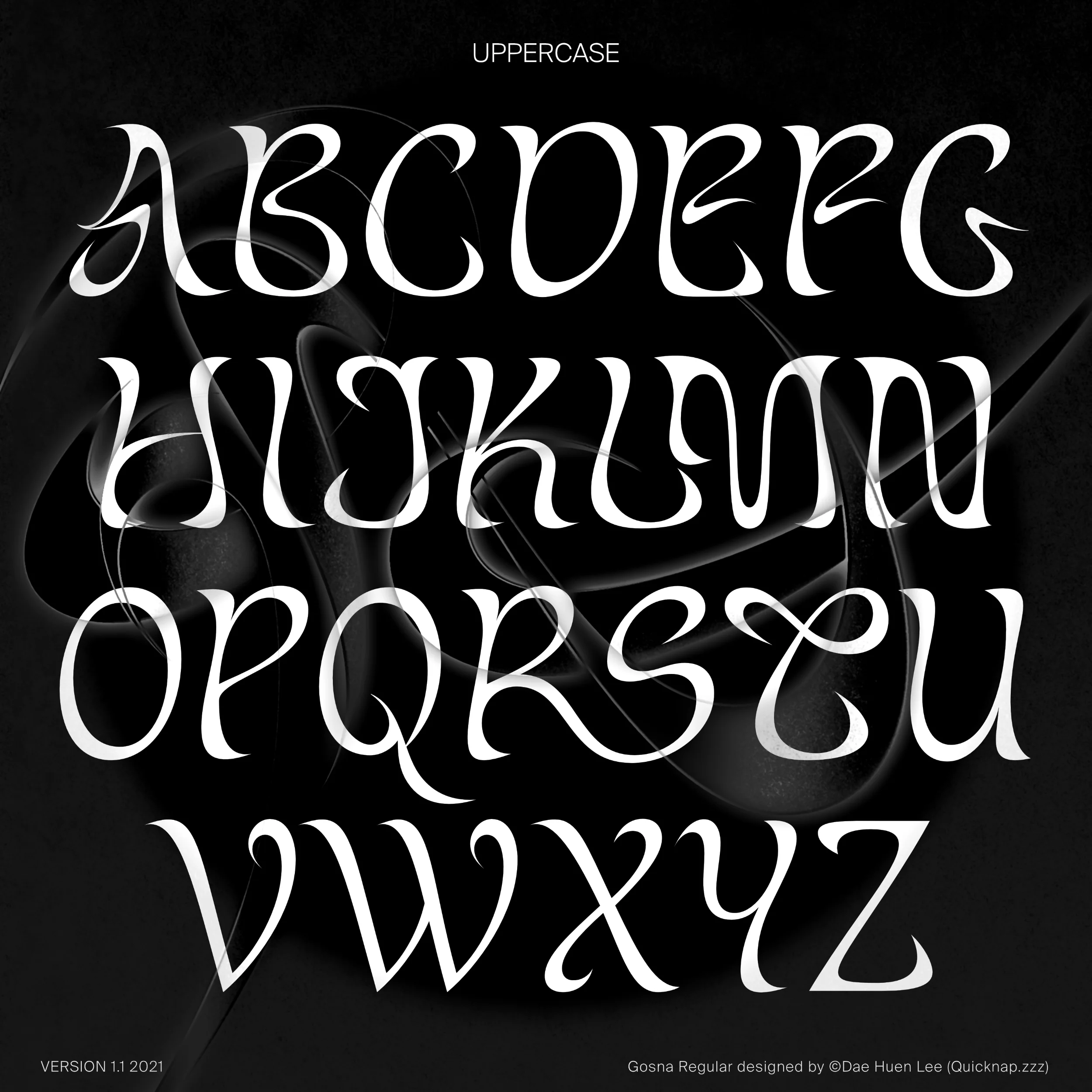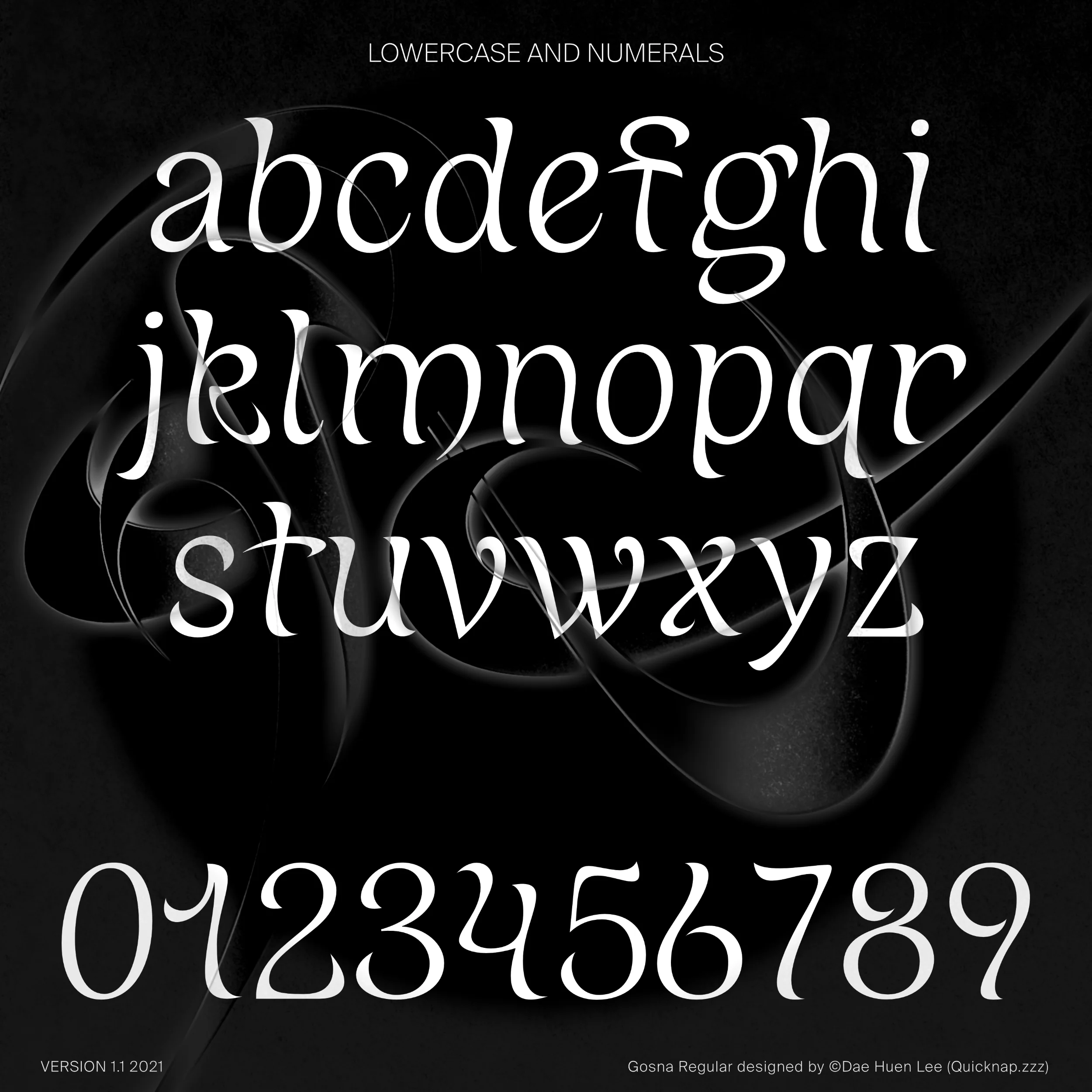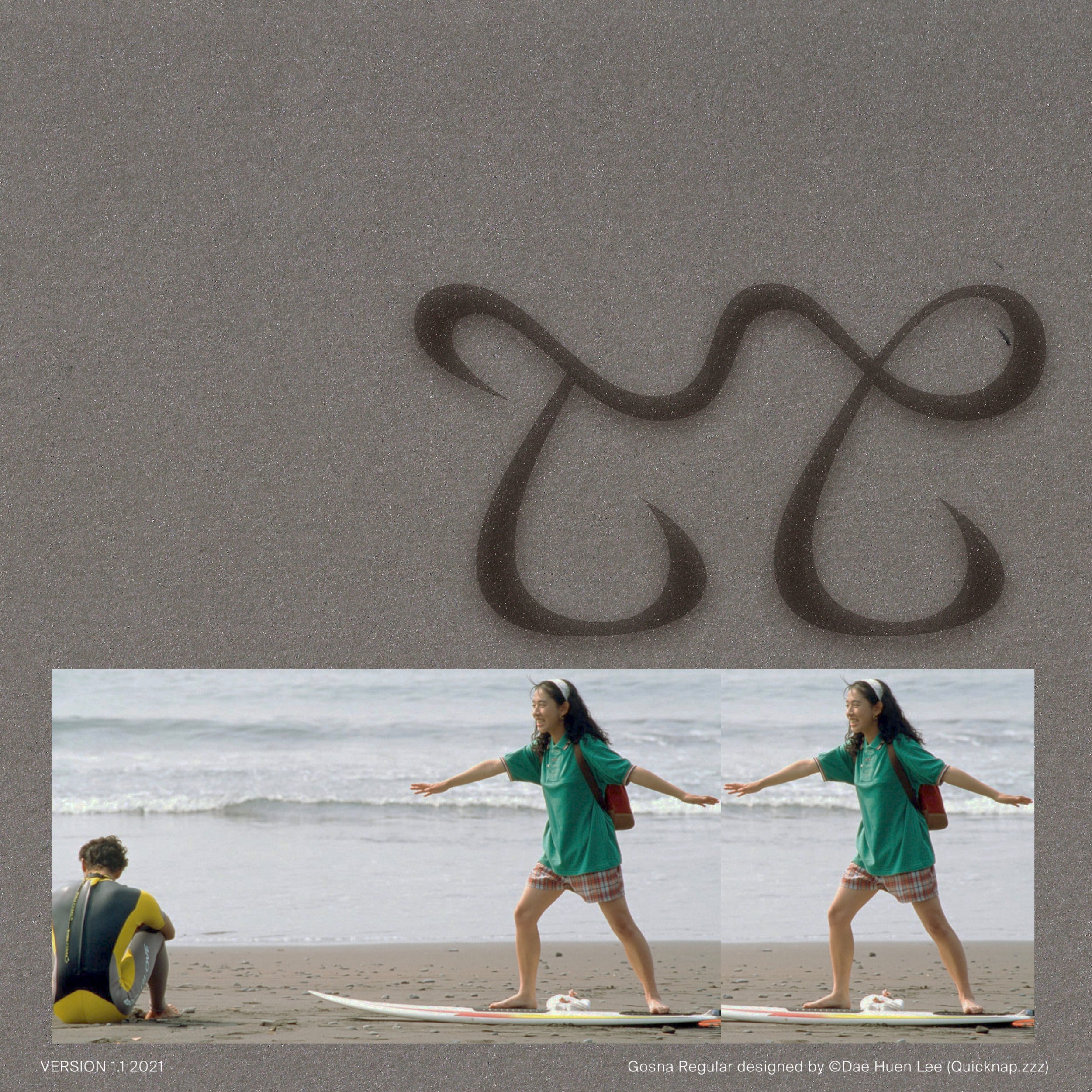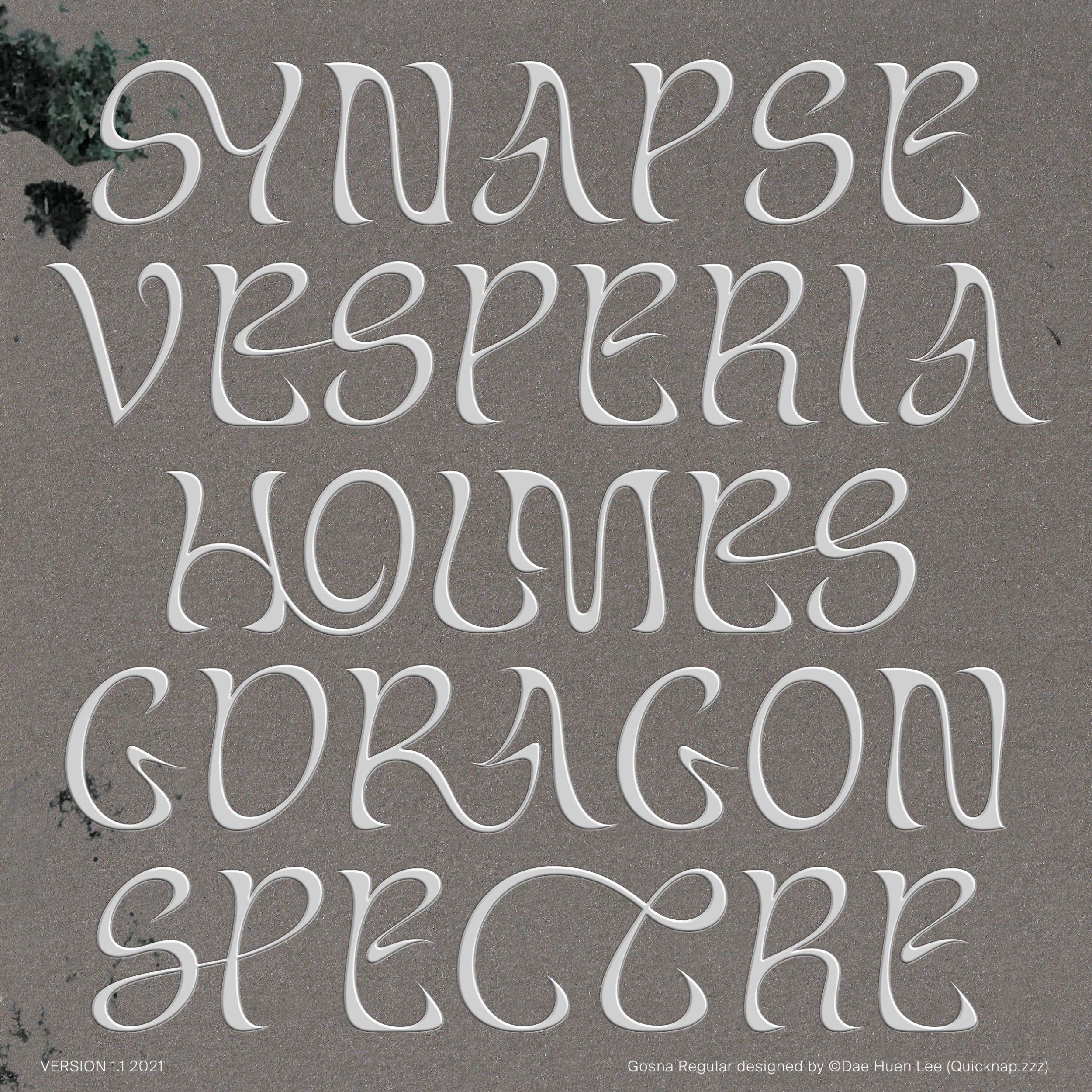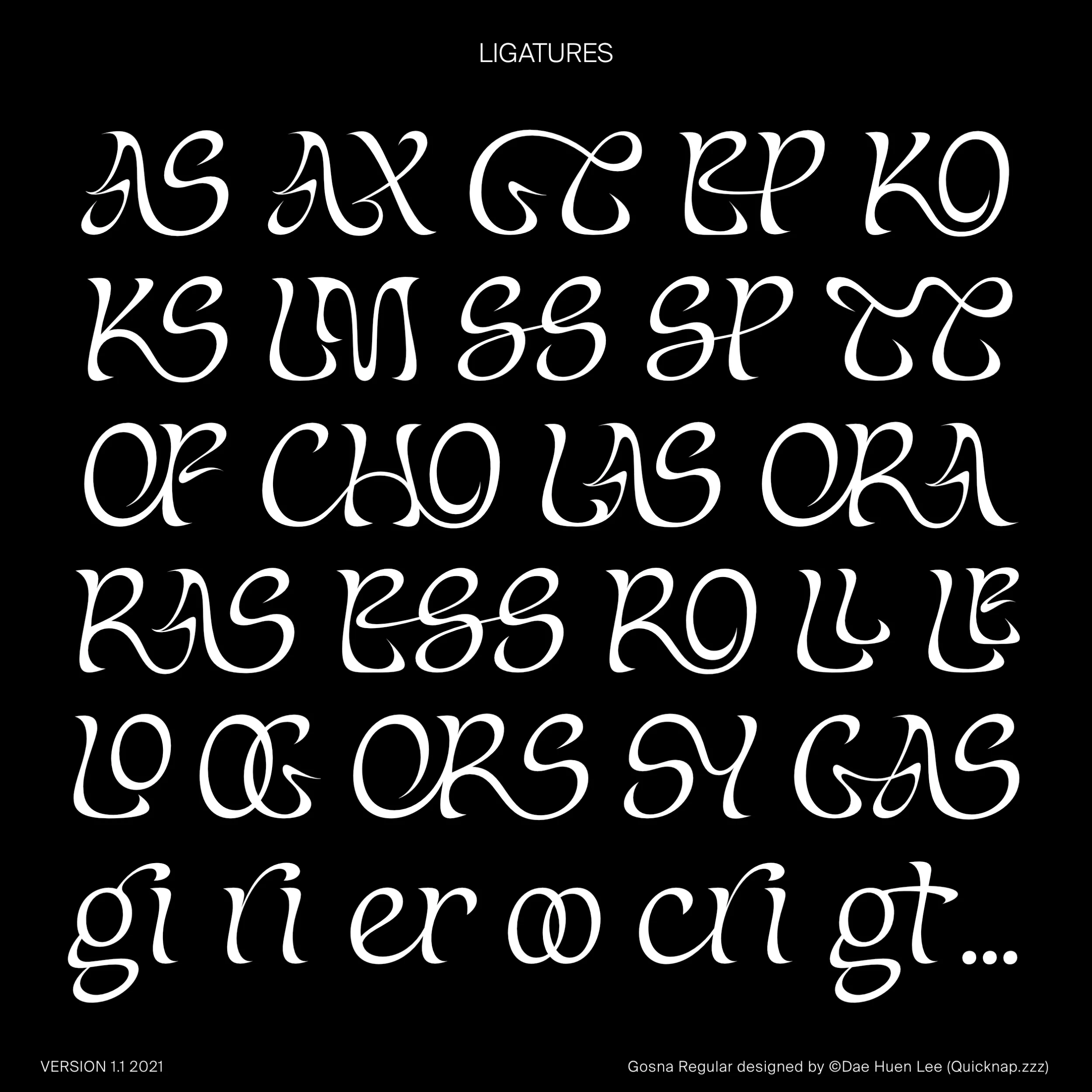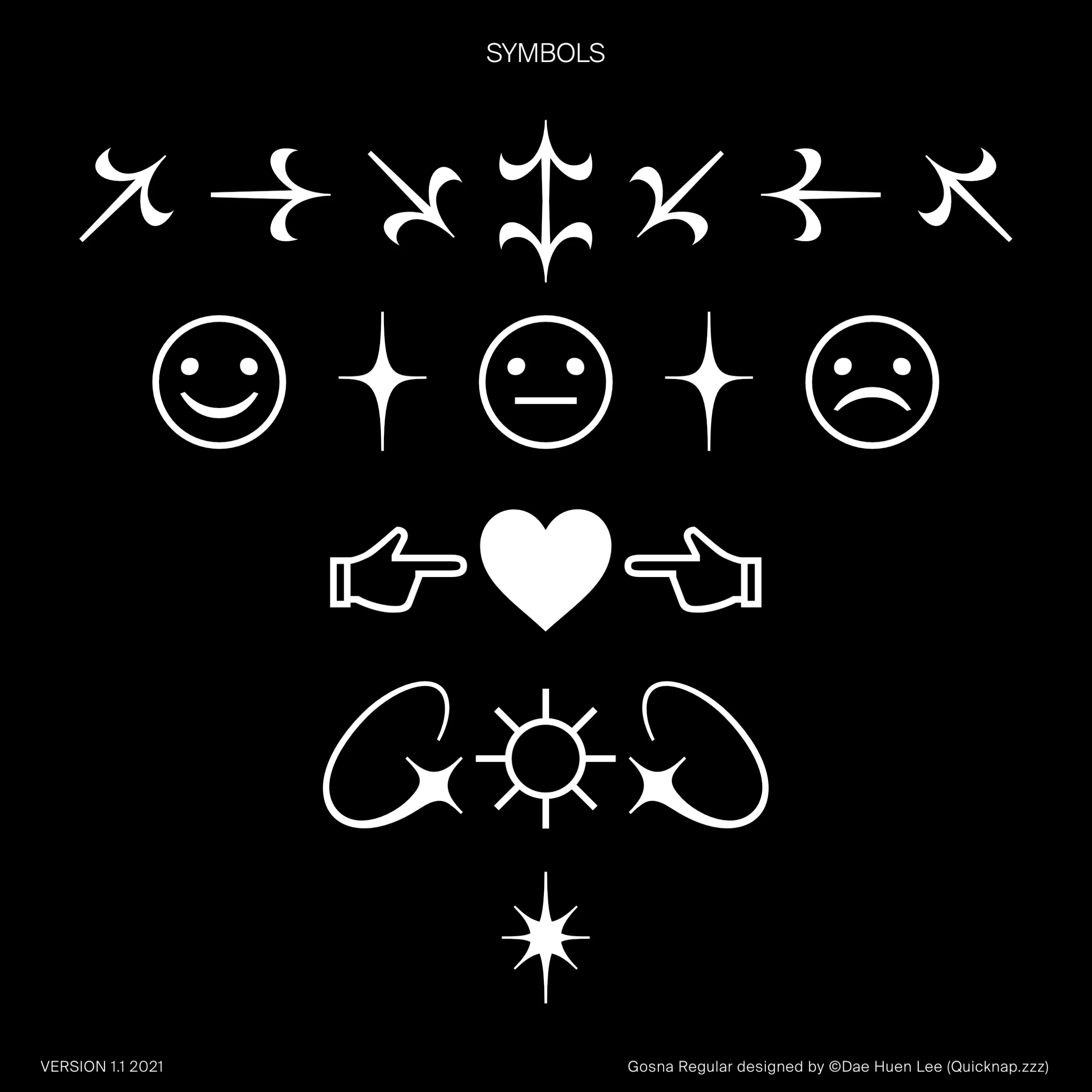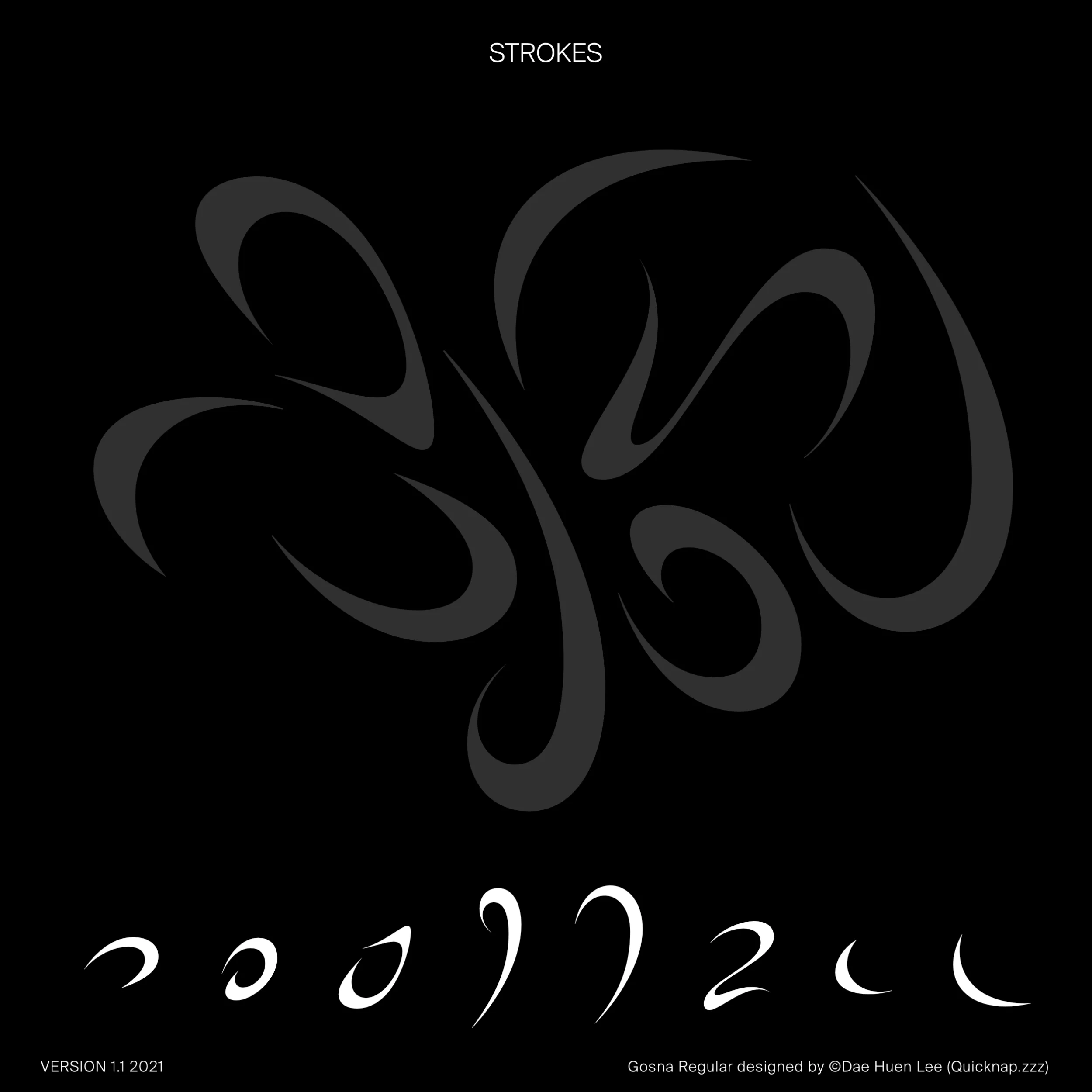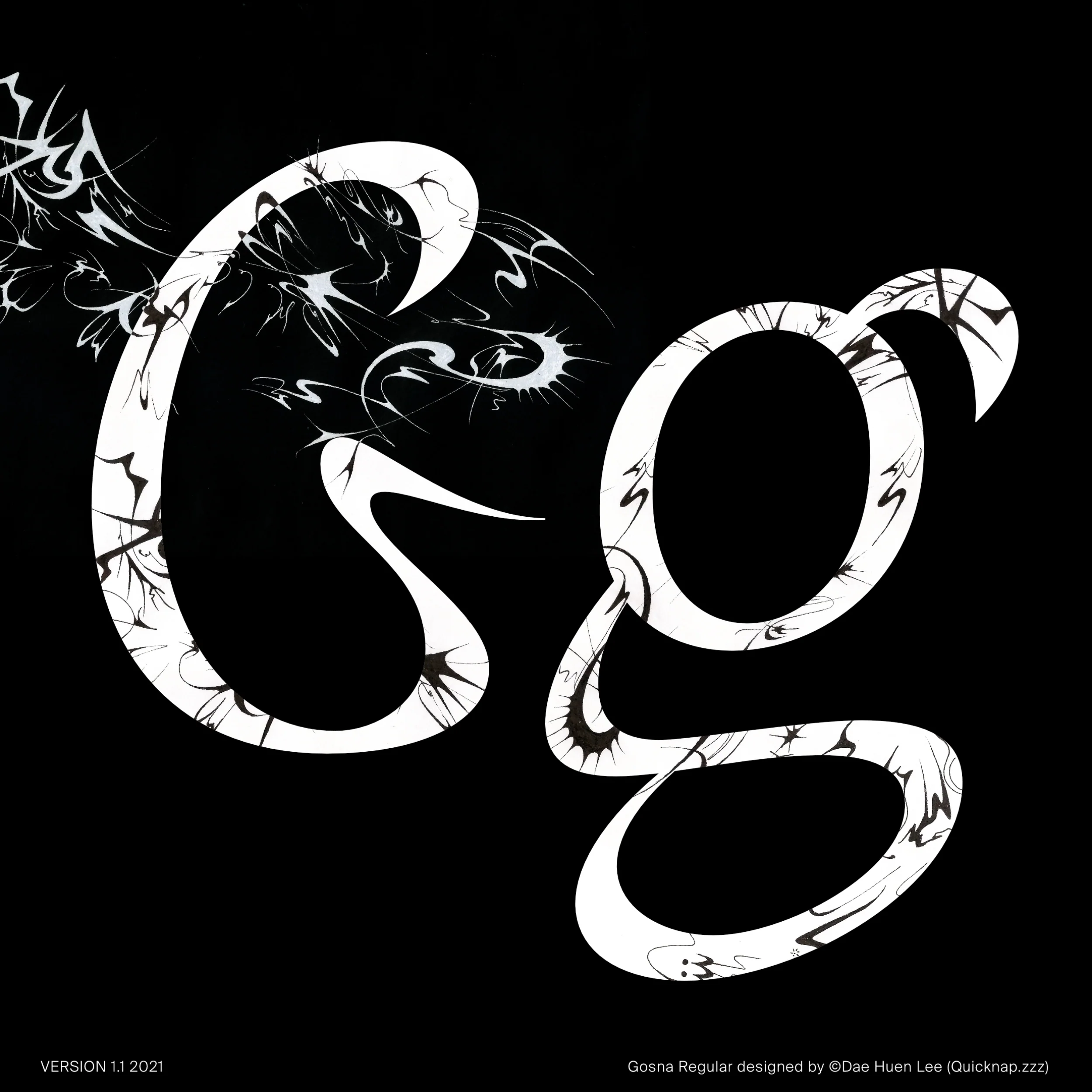
Gosna
Gosna is a captivating display font that echoes the fluidity of brush strokes, flowing dynamically and gesturally across the page. Inspired by the improvisational spirit of jazz solos, its delicate, pointed finishes emphasise sharp movements, occasionally connecting letters through ligatures for even more fluid compositions.
Each stroke in Gosna is akin to a musical phrase, imbued with tension and release, creating a lively and rhythmic quality in any text it adorns. Whether used for headlines, posters, or artistic typography, Gosna adds a unique touch of spontaneity and energy.
Ideal for projects that demand a sense of movement and creativity, Gosna is designed to make a lasting impression with its expressive and dynamic character.